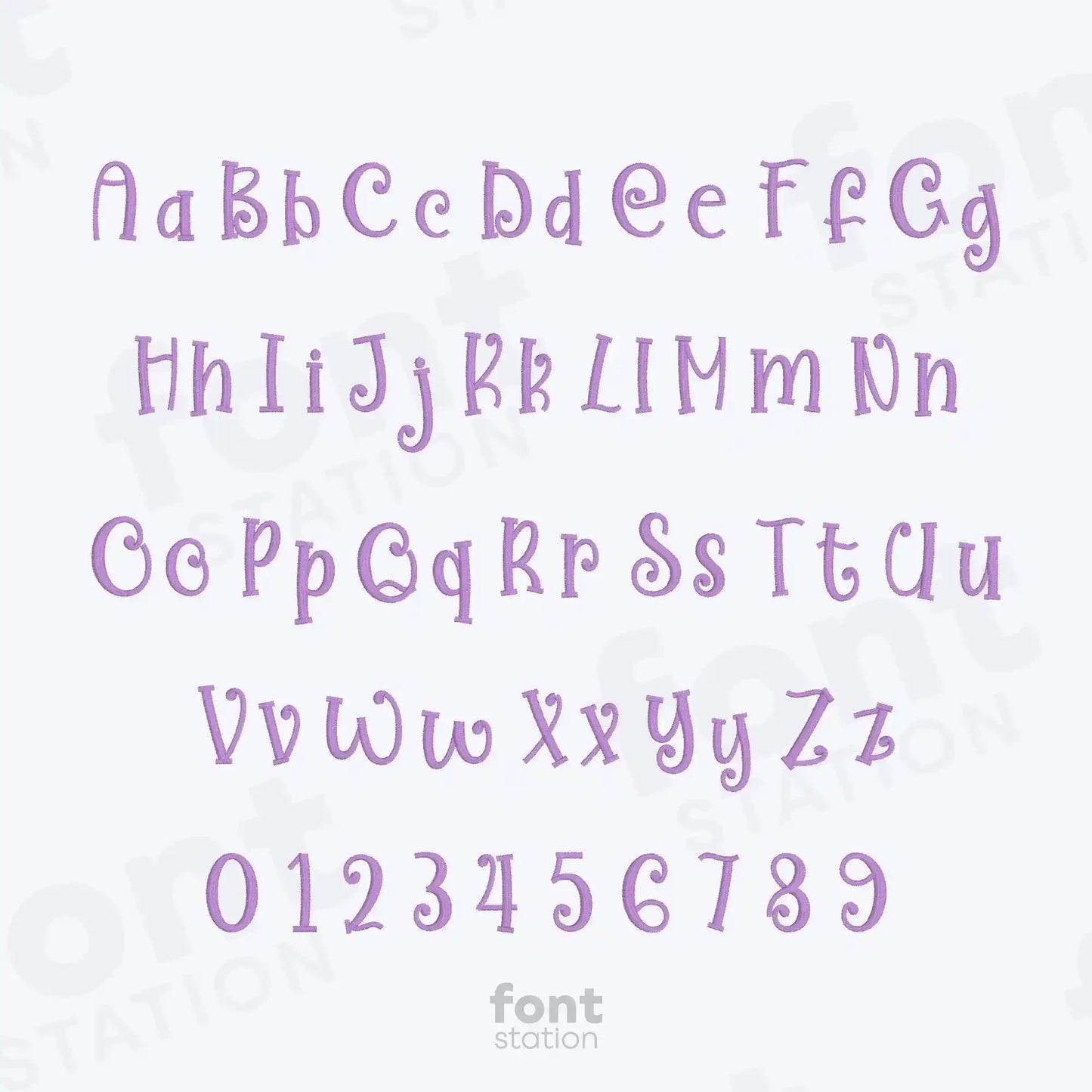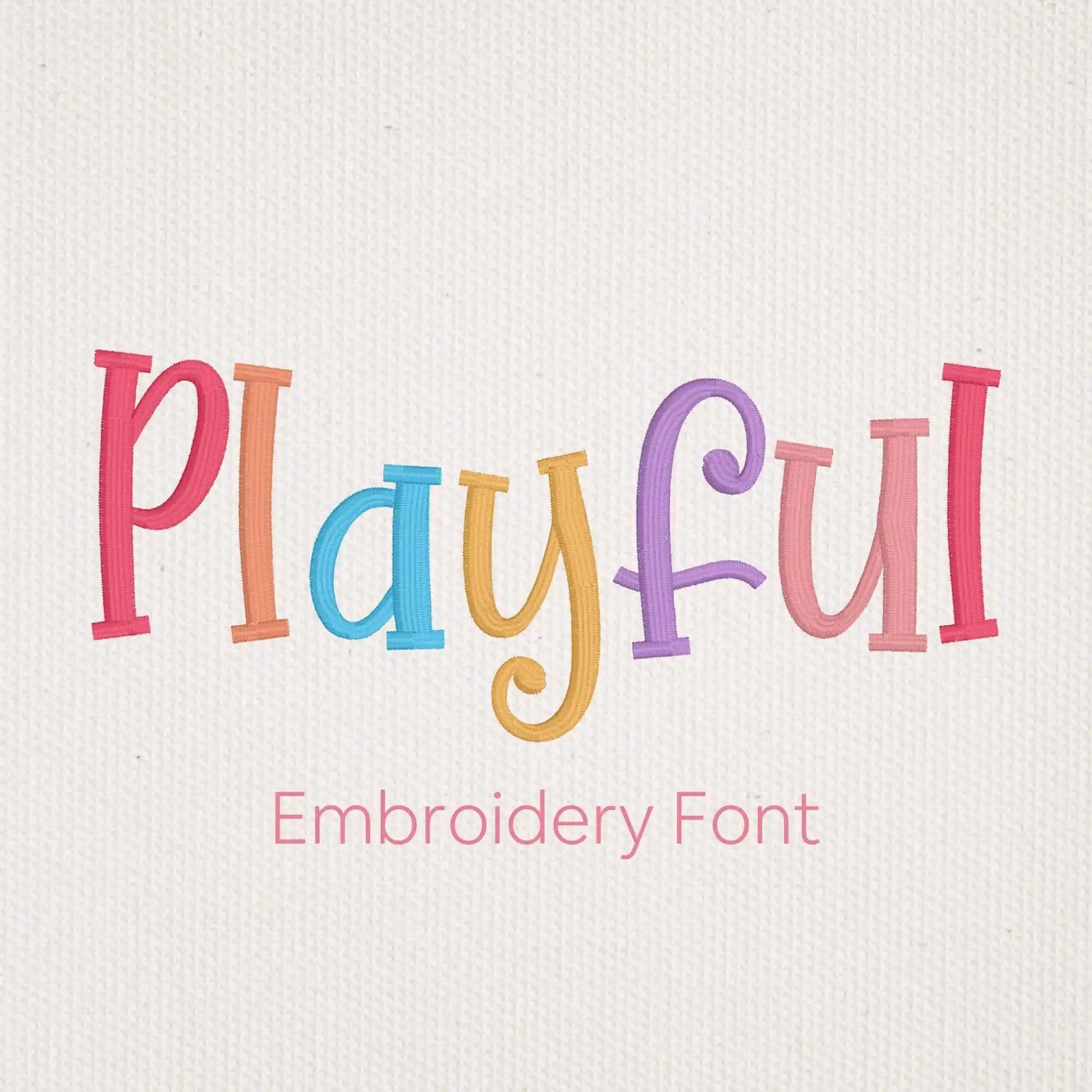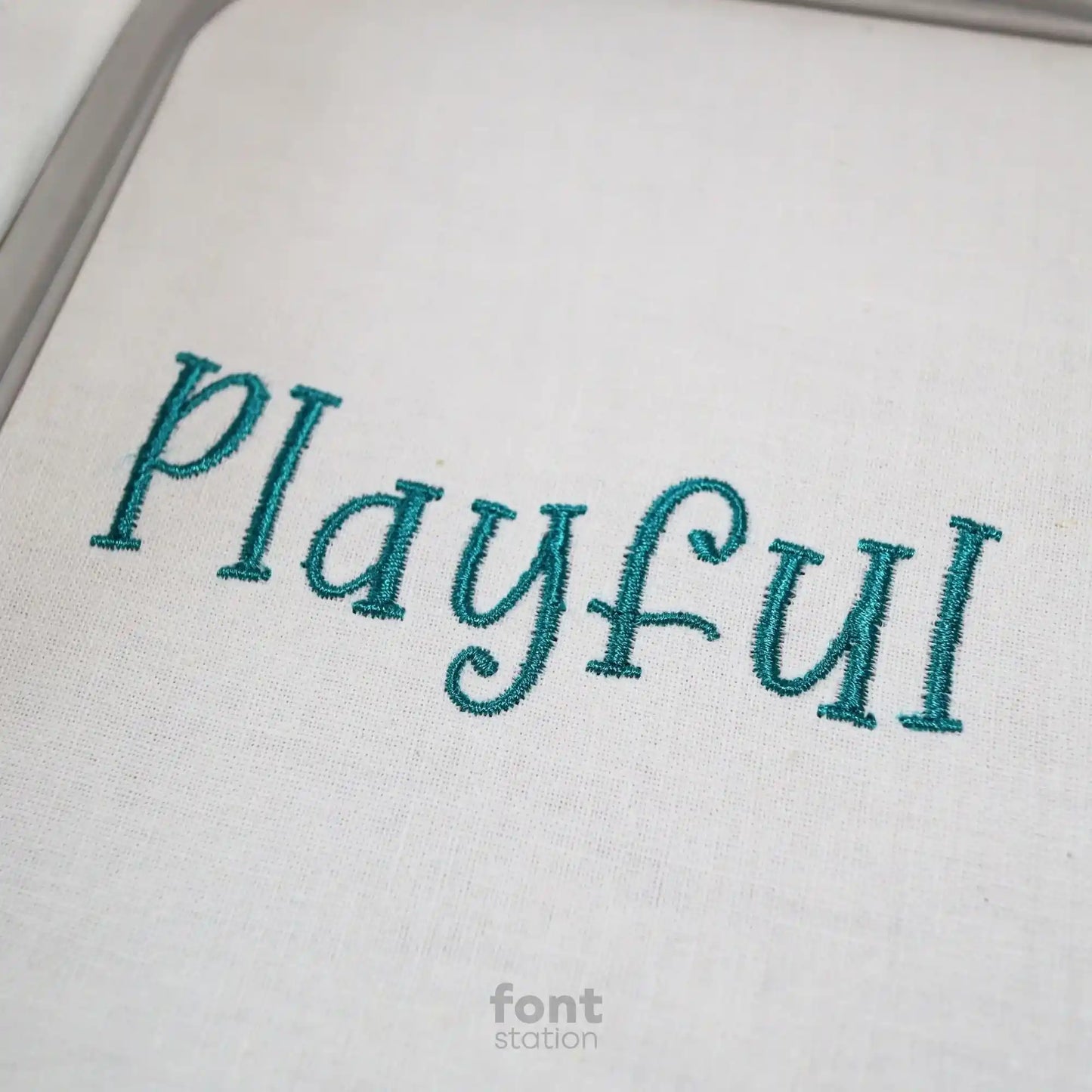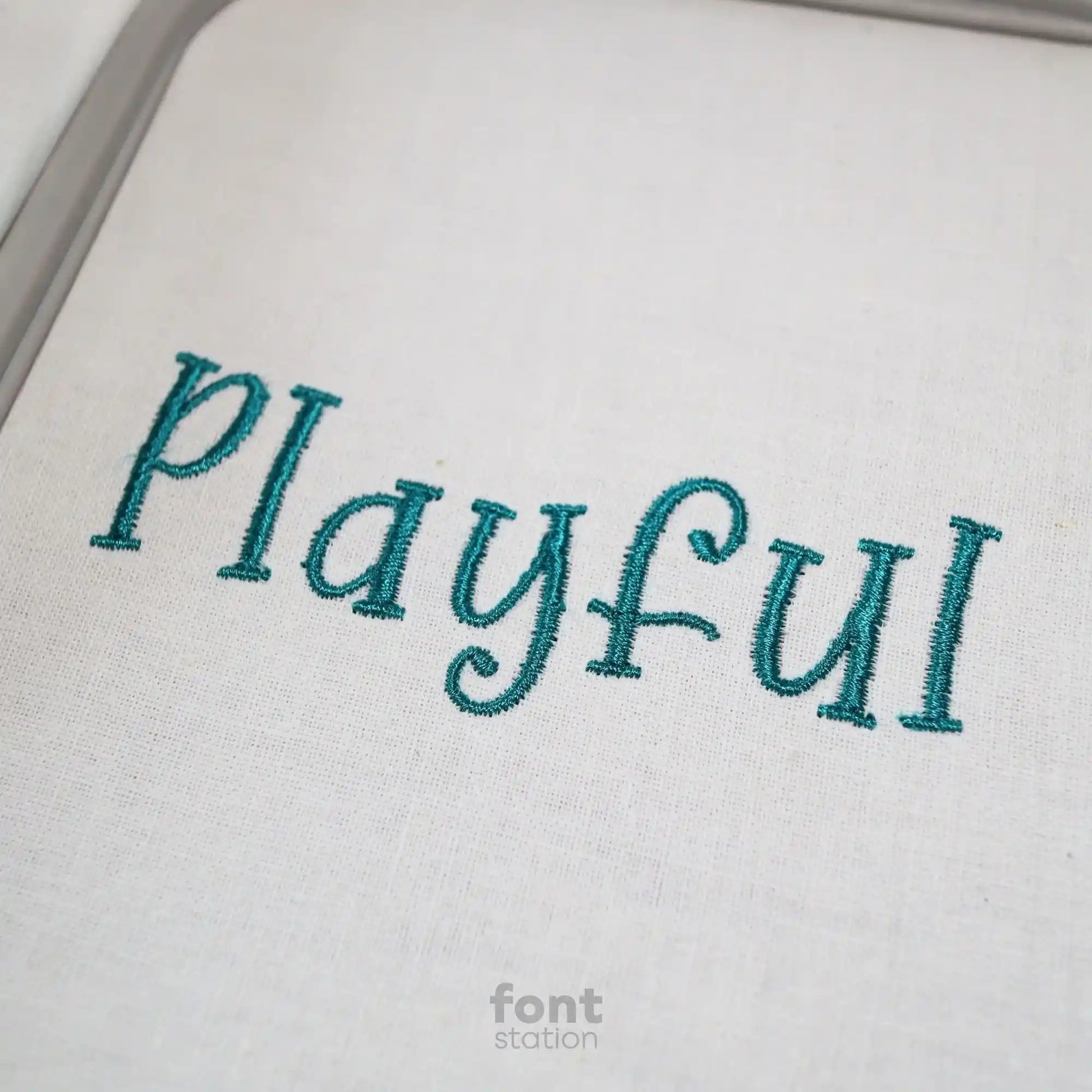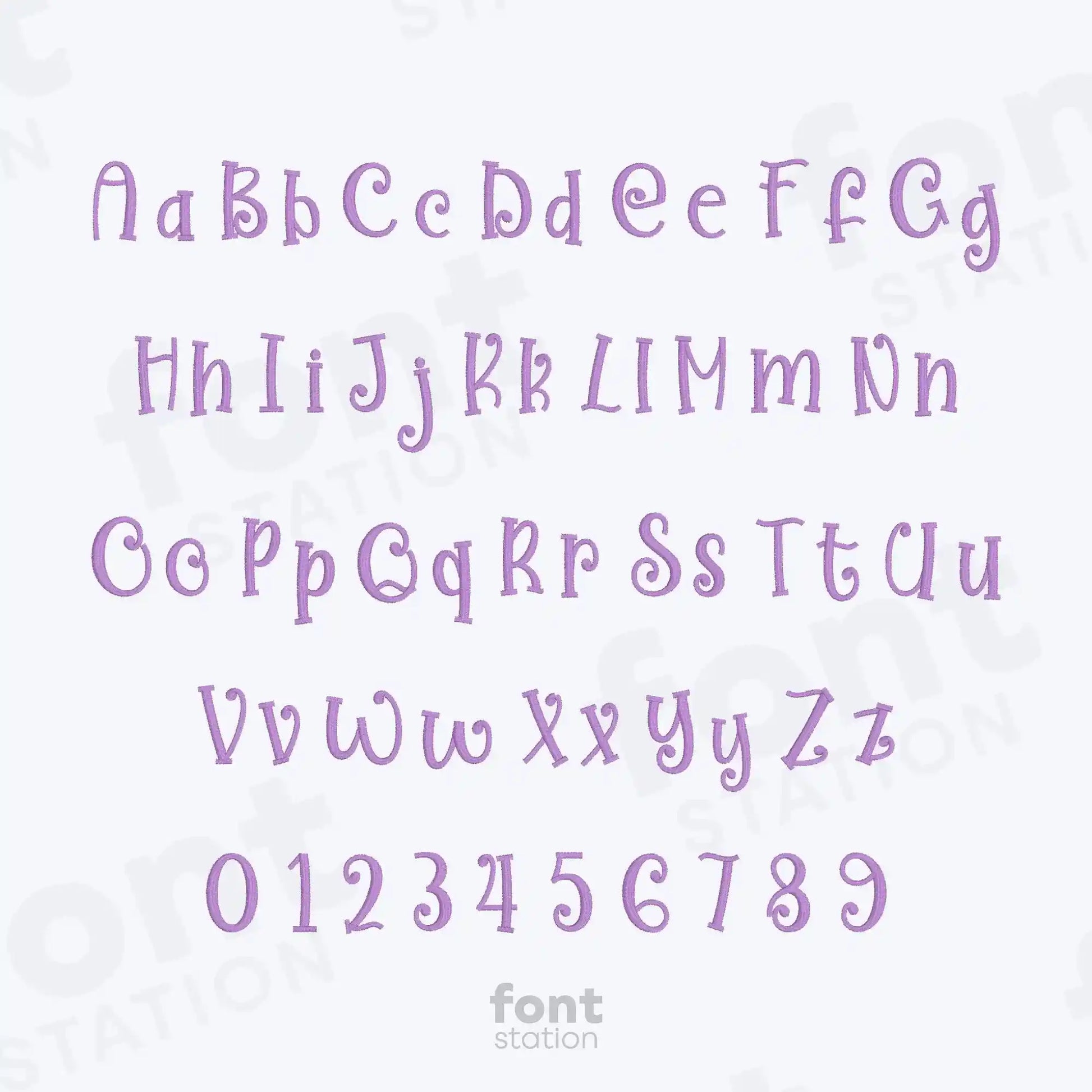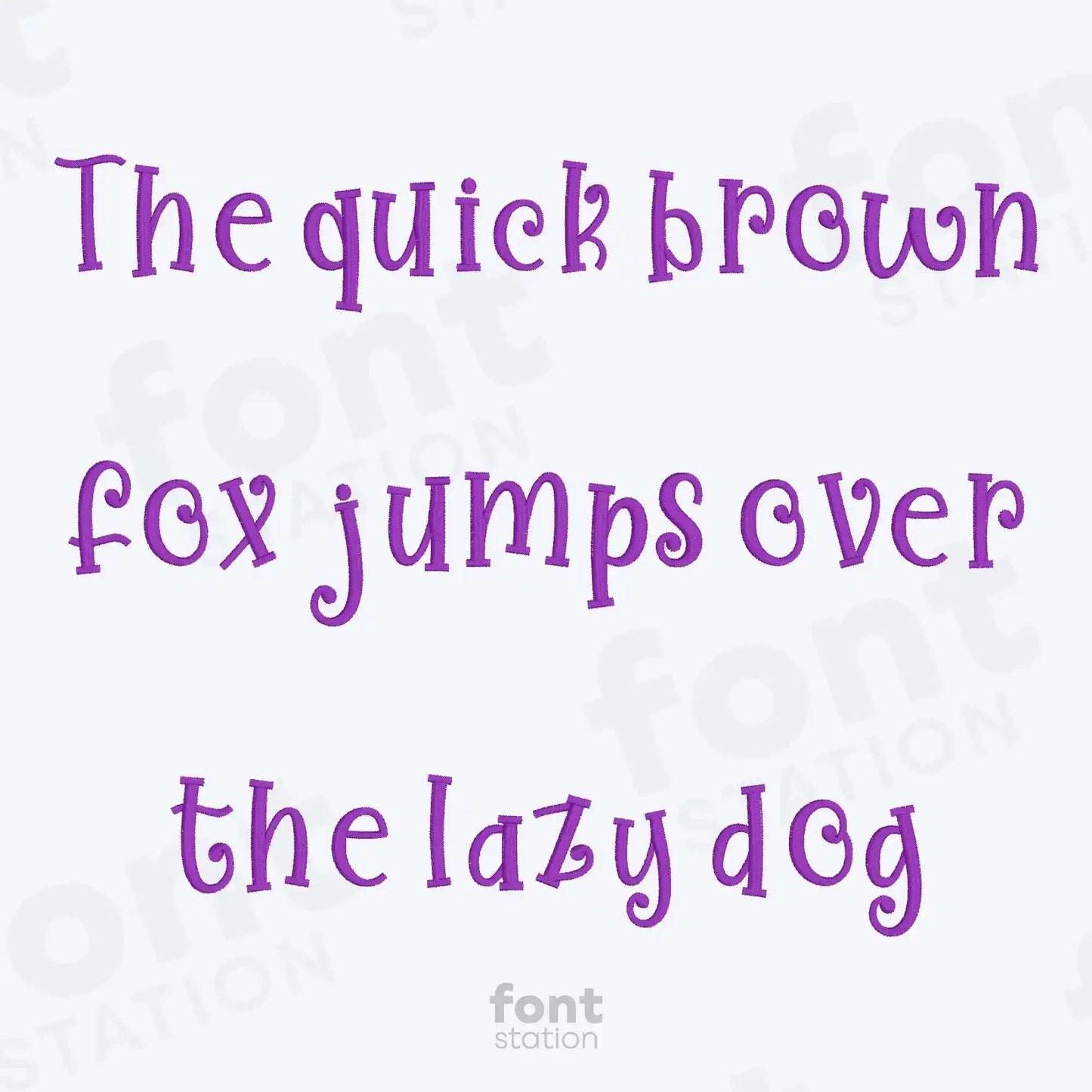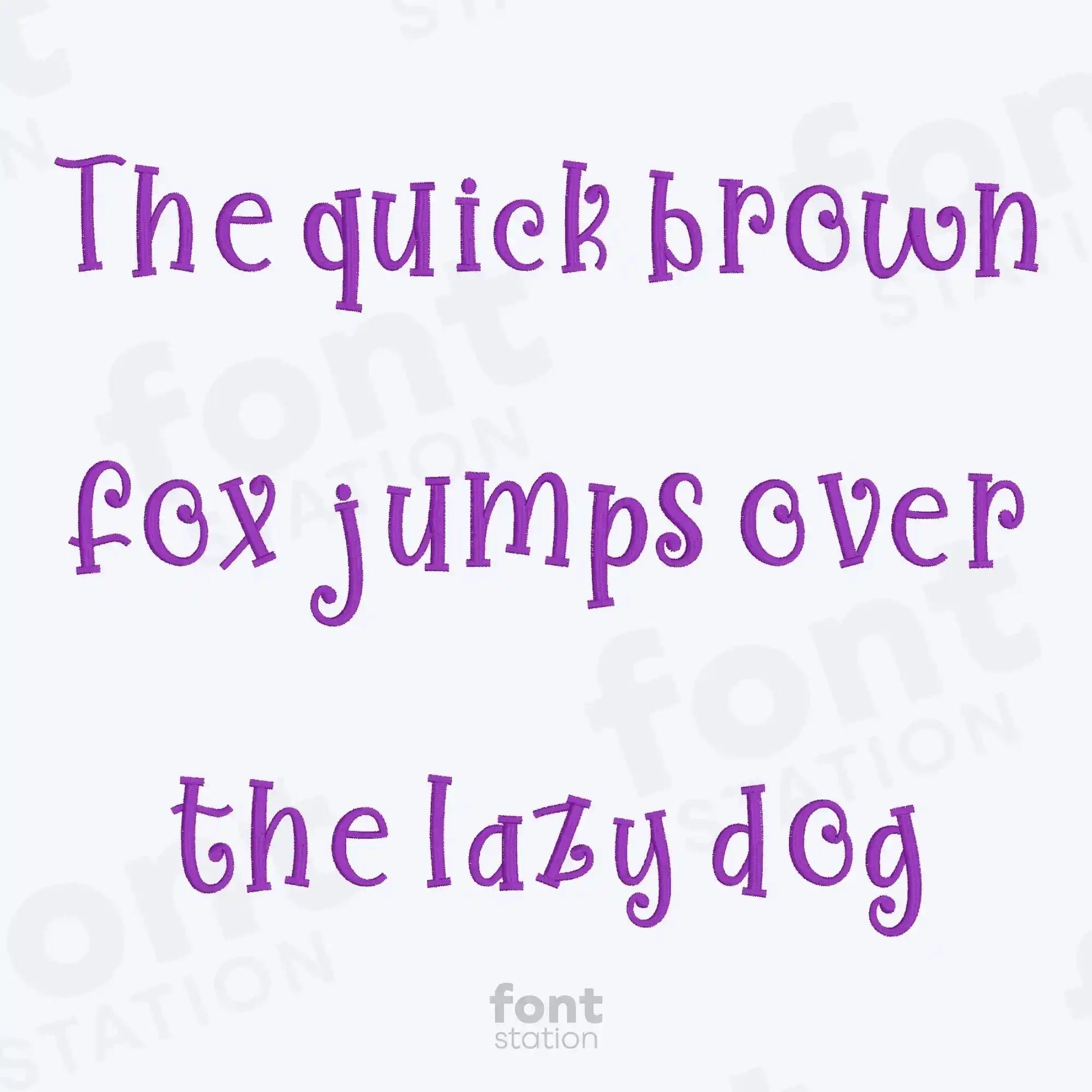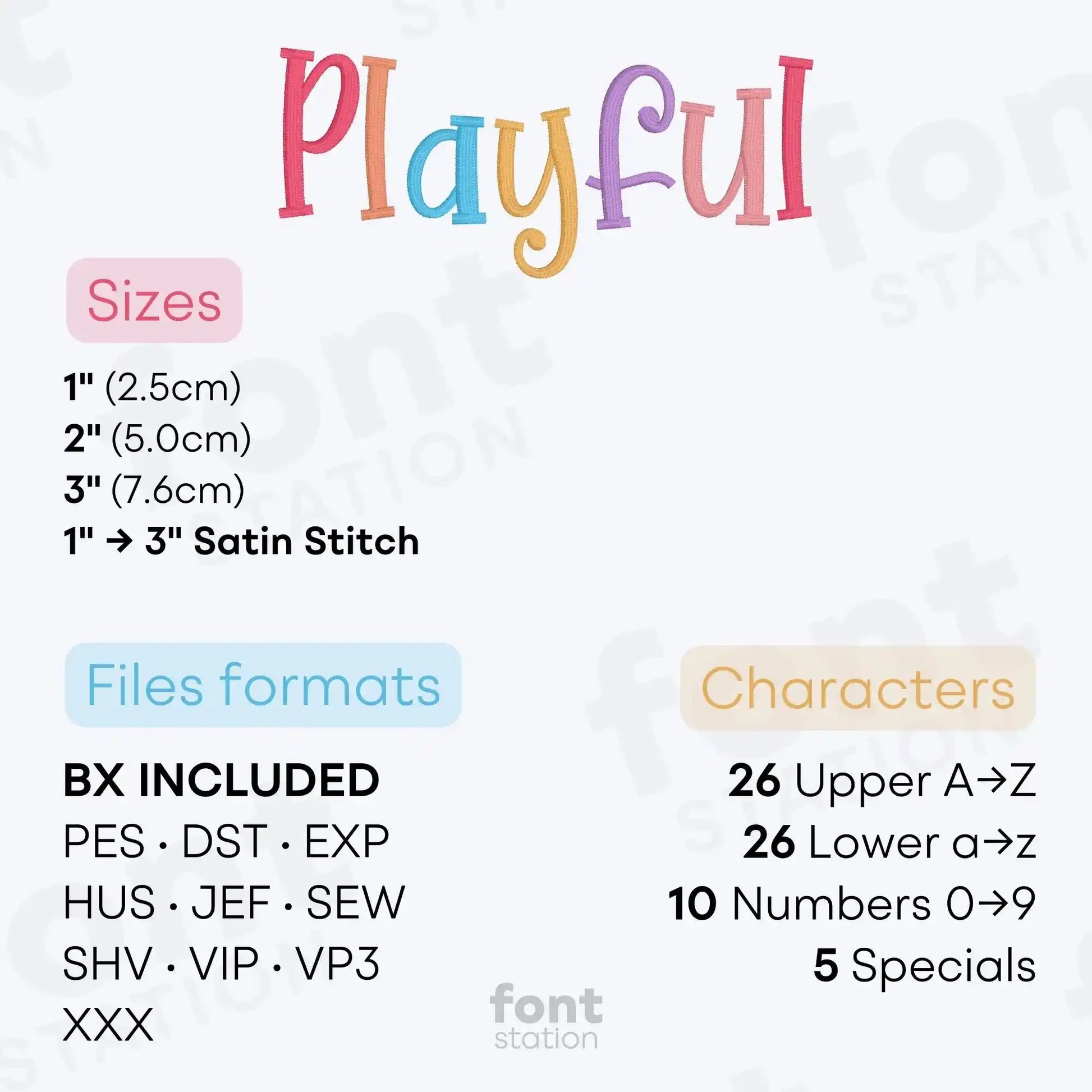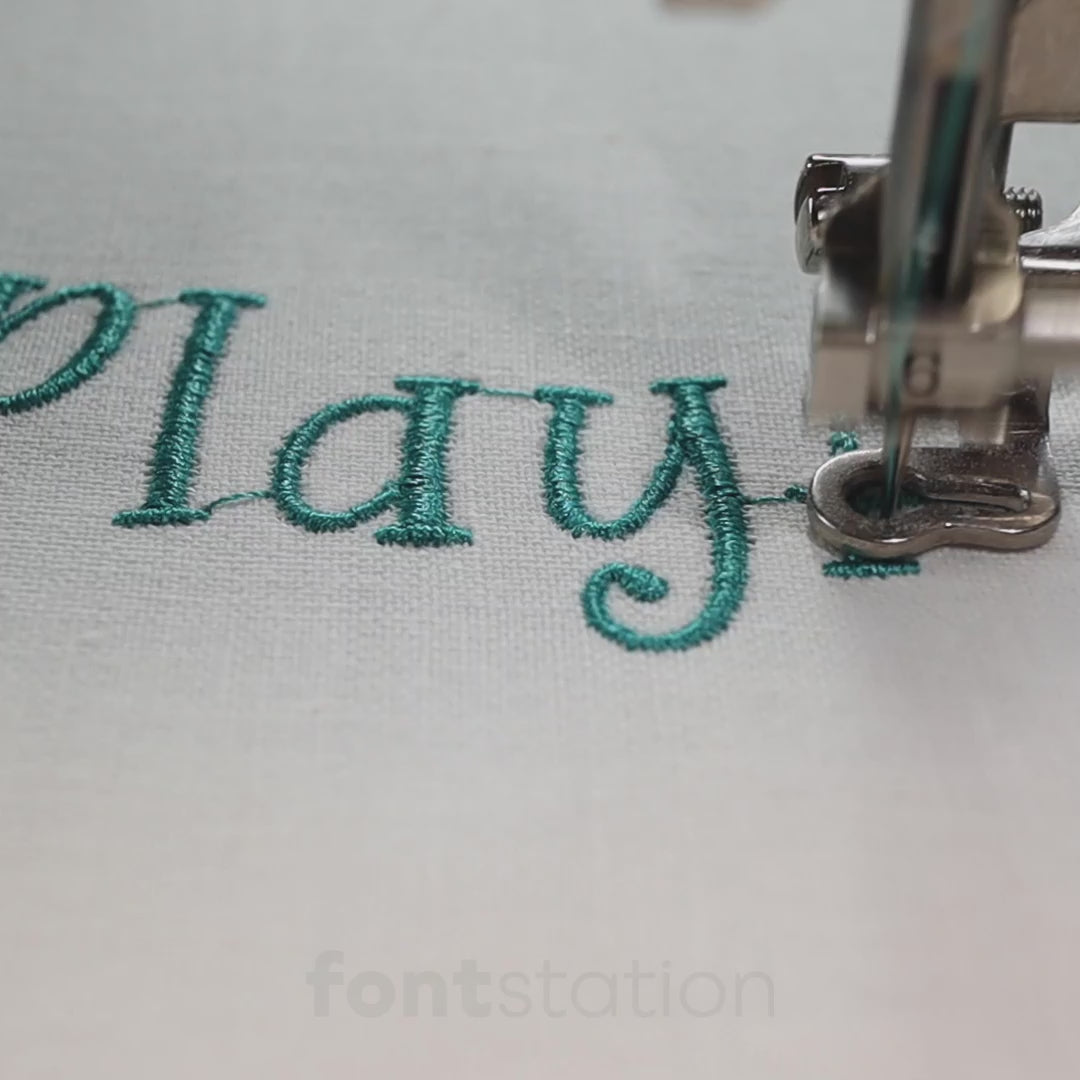
Playful Embroidery Font
Our Playful embroidery font is a fun, whimsical alphabet designed for machine embroidery. These lively letters add charm and creativity to any stitched design, perfect for kids’ projects, crafts, and personalized gifts.
About the Playful Embroidery Font
Add whimsy to your creations with our Playful embroidery font
Bring a cheerful personality to your projects with our Playful embroidery font. This whimsical alphabet is professionally digitized for crisp, clean stitching on most fabrics. Ideal for kids’ items, fun quotes, and creative designs, these machine-ready letters bring charm and joy to every embroidery project.